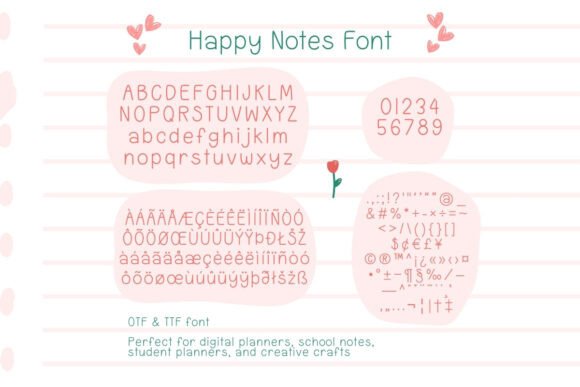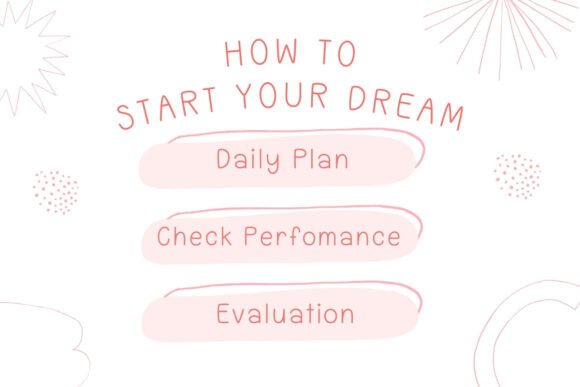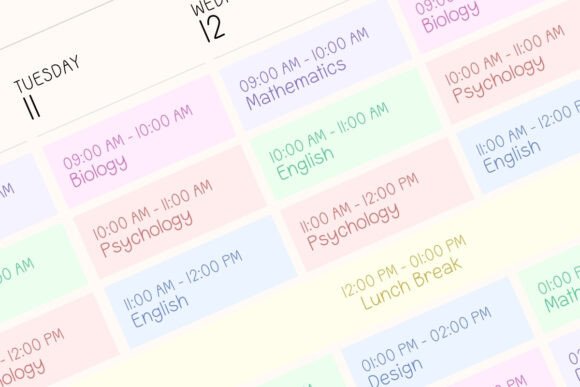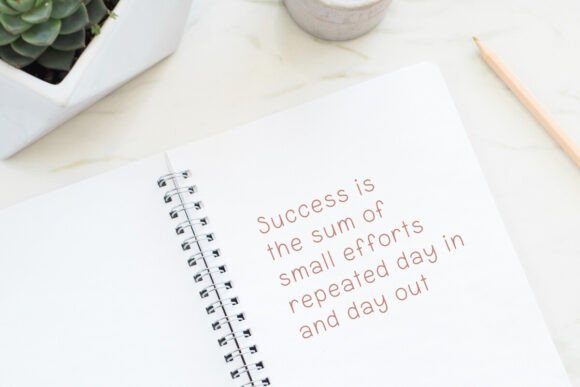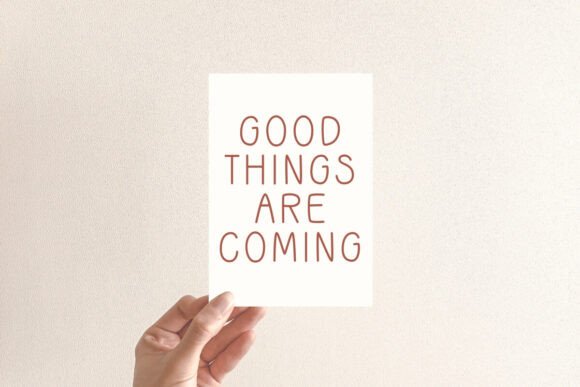
Happy Notes Font: Elevate Your Creativity with a Minimal Handwriting Style
Are you on the hunt for a font that adds a touch of joy and organization to your digital and printable projects? Look no further than the Happy Notes Font, a minimal and charming handwriting font designed to bring a cheerful vibe to your creations. Whether you’re a student, teacher, planner enthusiast, or crafter, this versatile font is perfect for anyone who loves neat and clean designs.
What is Happy Notes Font?
Happy Notes is a thoughtfully crafted, minimal handwriting font that is ideal for school notes, student planners, digital planning, and various crafting projects. Its clean and stylish design makes it easy to read, ensuring that your work looks both professional and delightful. This font is not just a tool; it’s an inspiration to create and organize your thoughts beautifully.
Key Features of Happy Notes Font
- Minimal and Stylish Handwritten Design: The Happy Notes Font boasts a simple yet charming handwriting style that adds a personal touch to any project.
- Perfect for Both Print and Digital Designs: Its versatility allows you to use it across various mediums, from digital planners and journals to printable art and crafts.
Uses of Happy Notes Font
The possibilities with Happy Notes Font are endless. Here are some ways you can incorporate it into your projects:
- School Notes and Student Planners: Keep your notes and plans organized with a font that is both fun and functional.
- Digital Planning: Enhance your digital planners with a cheerful and easy-to-read font, perfect for daily, weekly, or monthly spreads.
- GoodNotes, Notion, and Procreate: Bring a personal touch to your digital notes and artwork with this delightful font.
- Crafts and Journaling: Add a unique and stylish element to your handmade crafts, journals, and scrapbooks.
- Canva and Cricut Projects: Easily incorporate Happy Notes Font into your graphic designs and cutting projects for a personalized look.
Why Choose Happy Notes Font?
In a world where digital and physical clutter can be overwhelming, the Happy Notes Font offers a breath of fresh air. Its minimalistic design ensures that your work remains clean and easy to read, while its charming style adds a hint of personality. This font is not just about aesthetics; it’s about creating a positive and productive mindset through your designs.
Tips for Using Happy Notes Font
- Mix and Match: Combine Happy Notes Font with other fonts for a unique look, but ensure readability.
- Play with Colors: Use your favorite colors to match your brand or personal style.
- Experiment with Sizes: Adjust the font size to suit different elements of your project, from headings to body text.
In conclusion, the Happy Notes Font is a versatile and delightful tool for anyone looking to add a touch of joy and organization to their projects. Its minimal handwriting style, ease of use, and wide compatibility make it an excellent choice for students, planners, crafters, and designers. So why wait? Download Happy Notes Font today and start creating your happy notes!